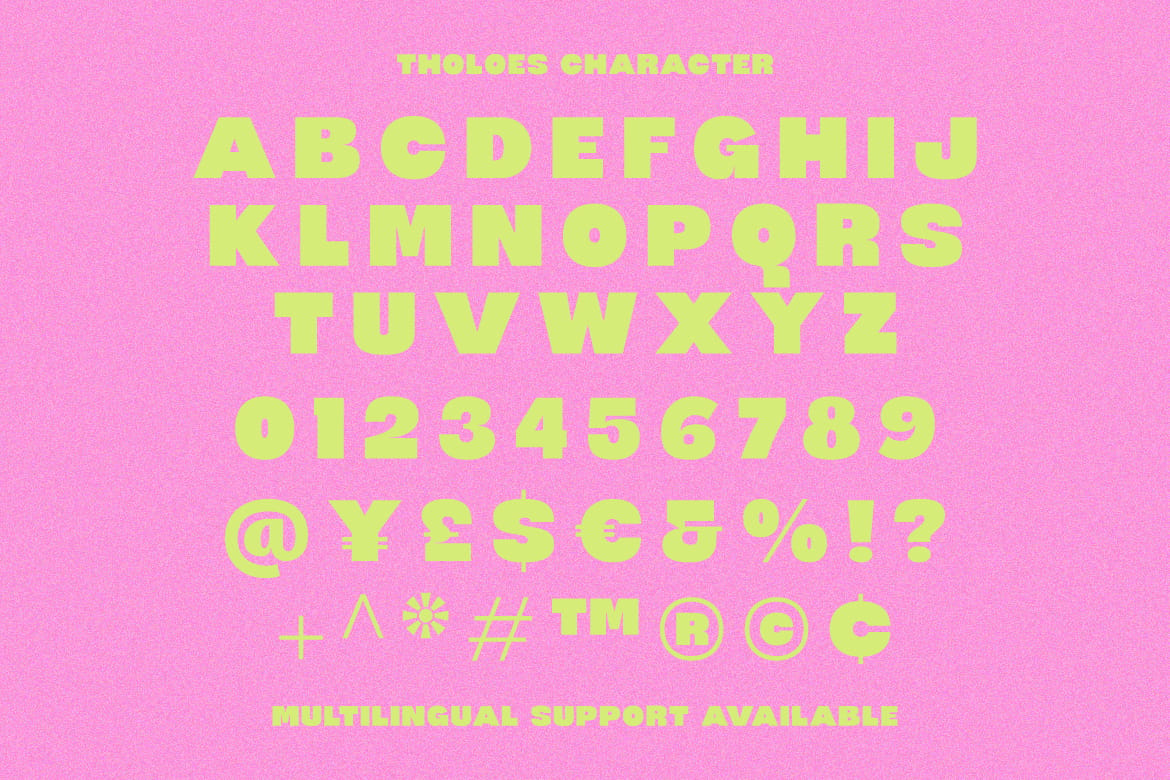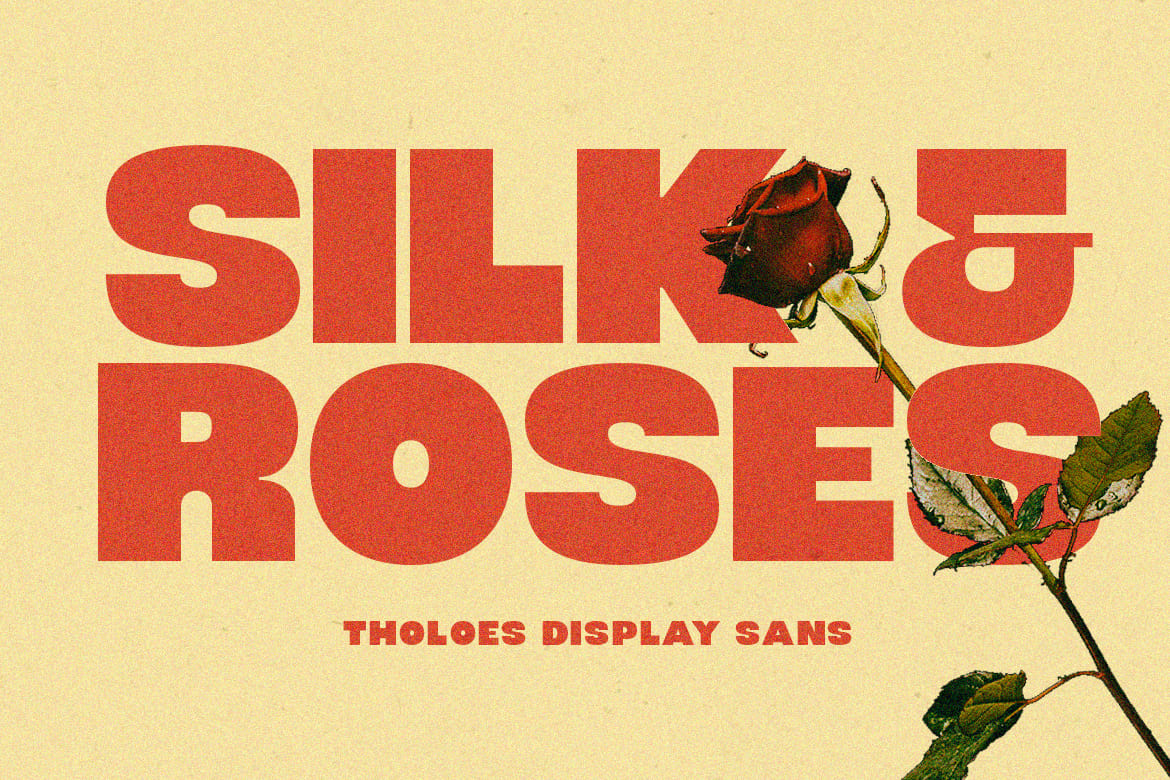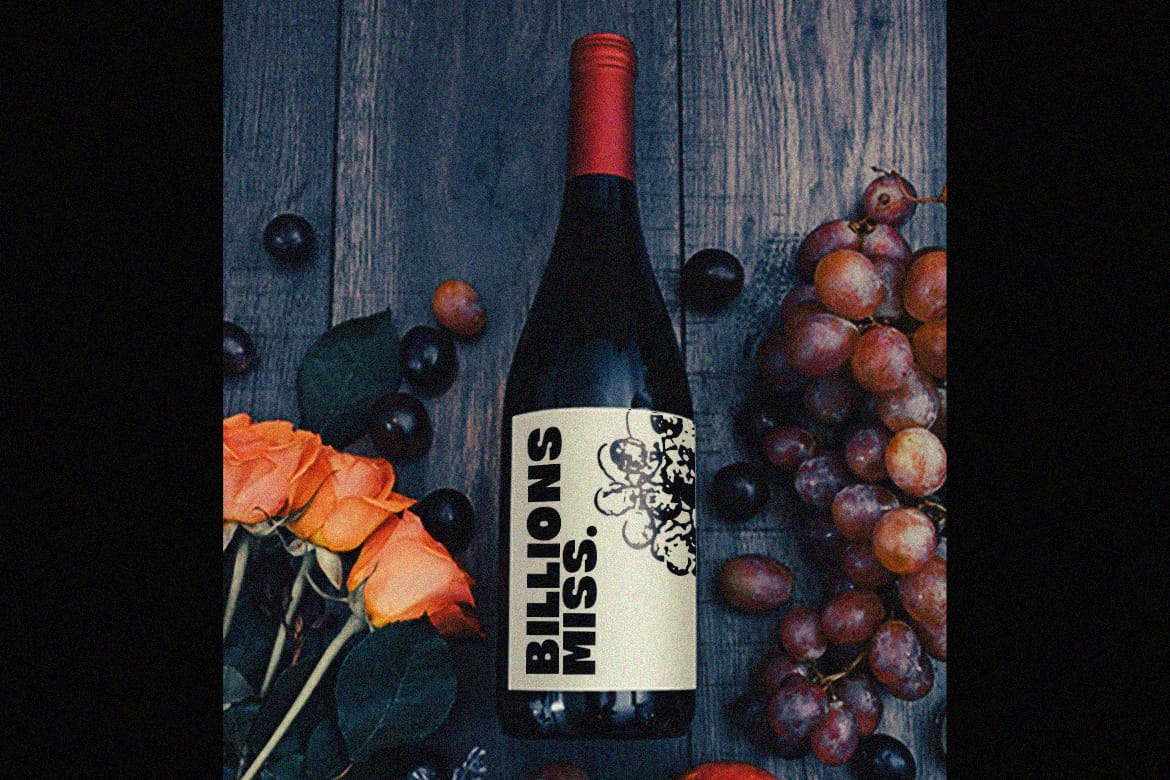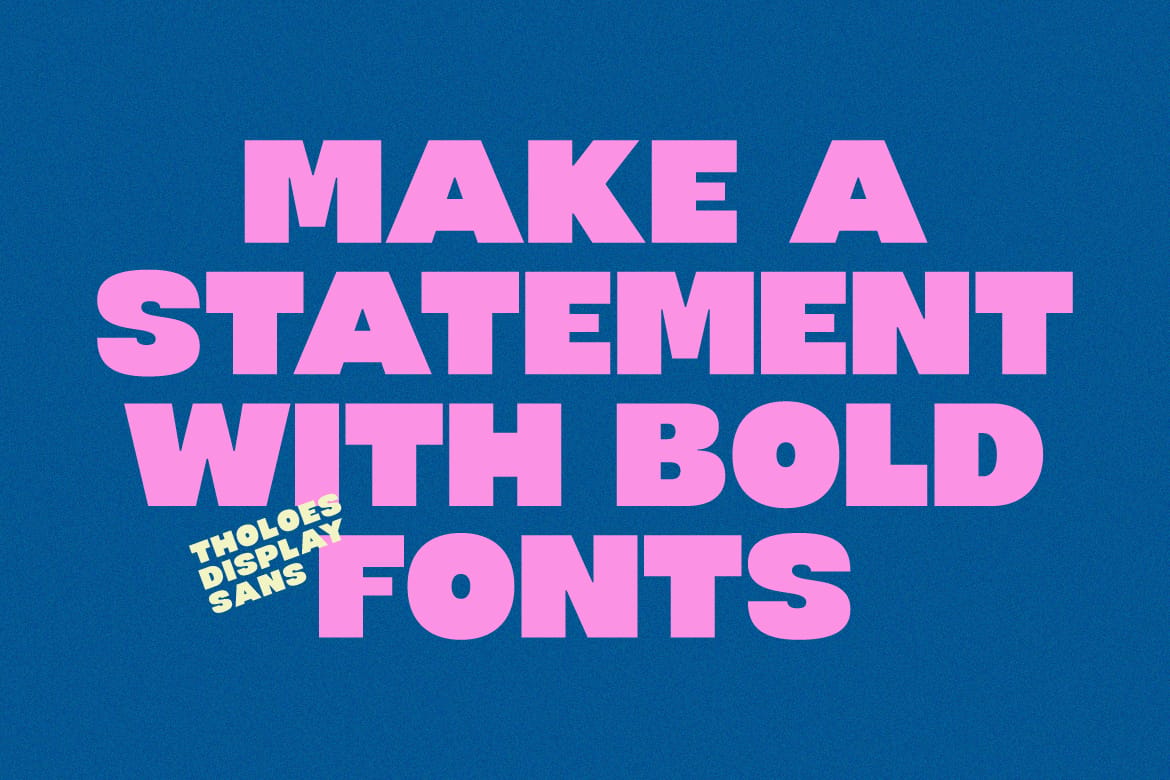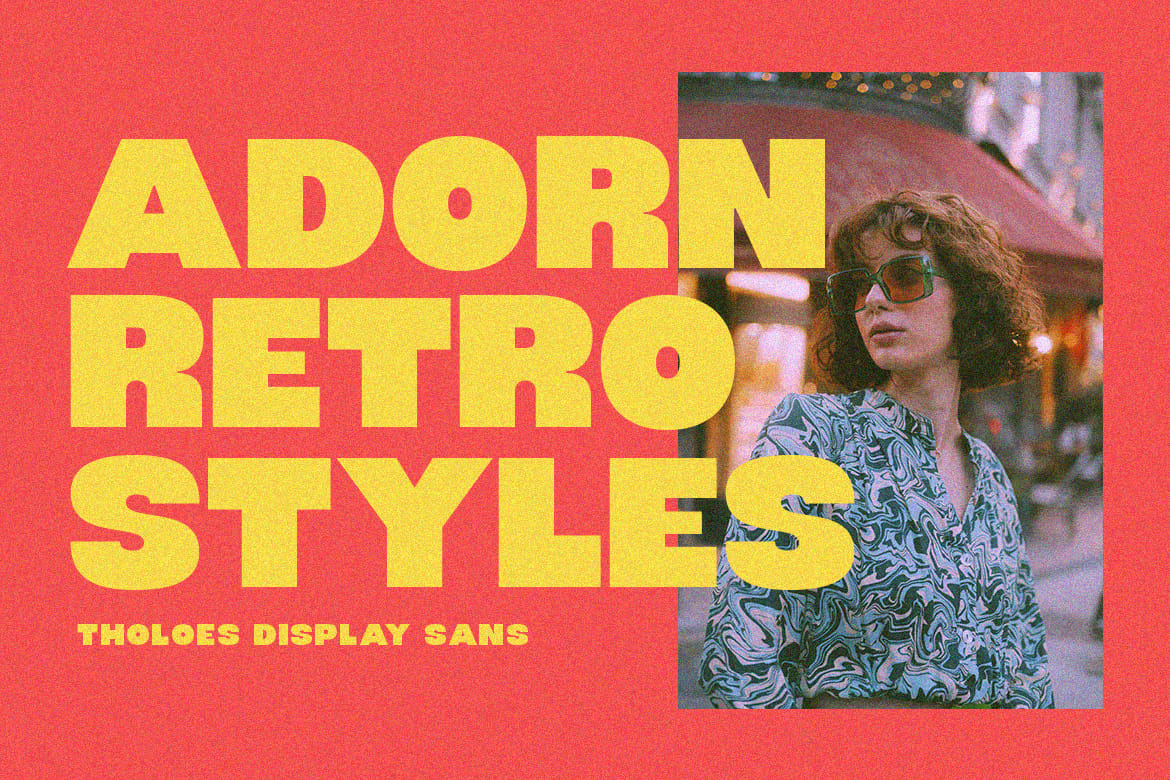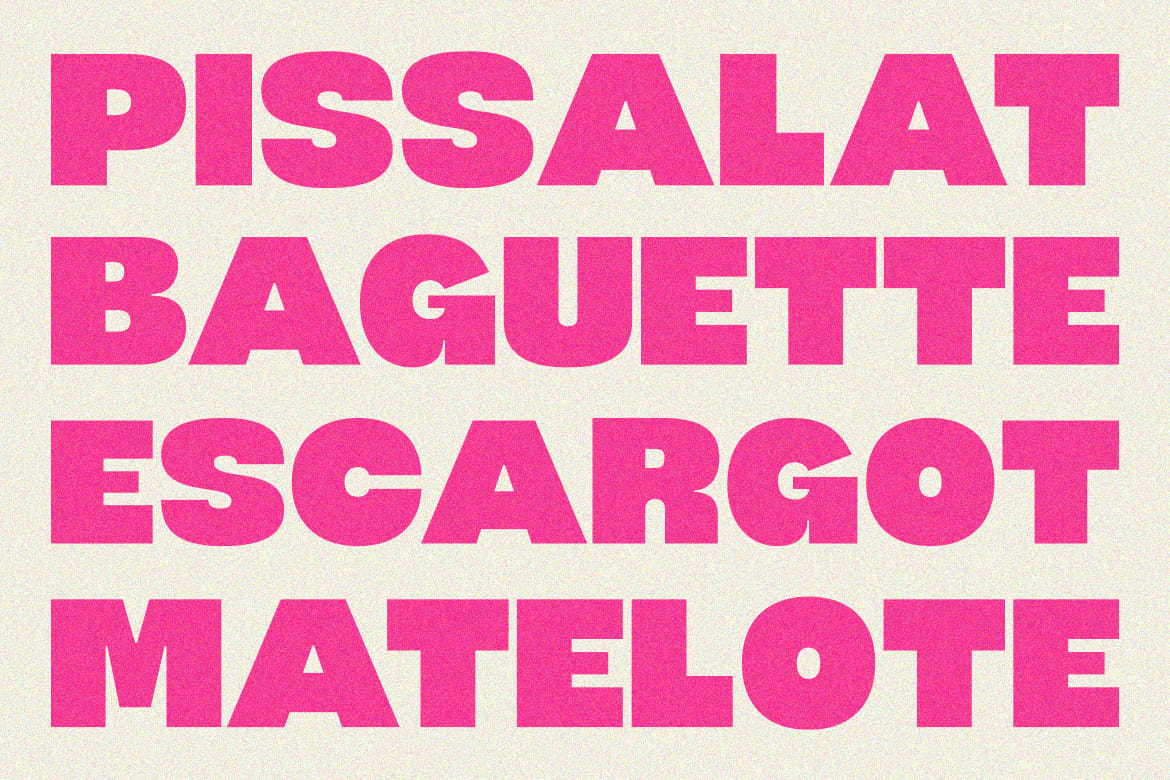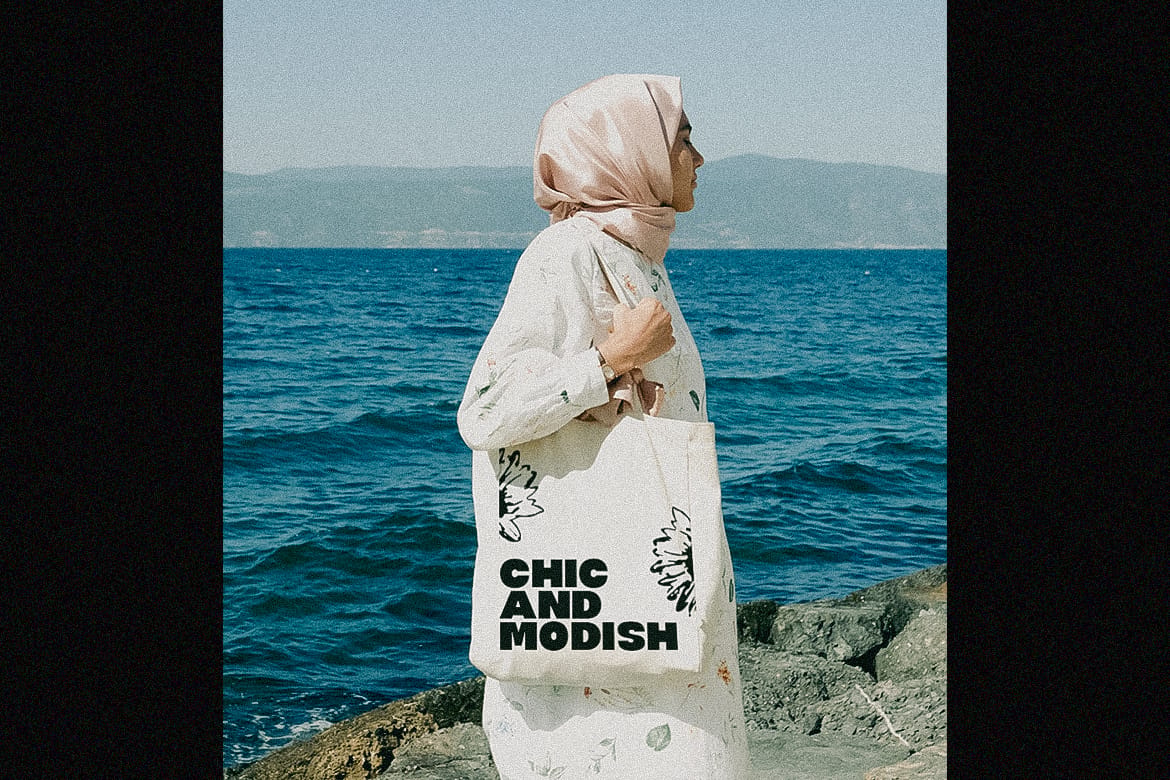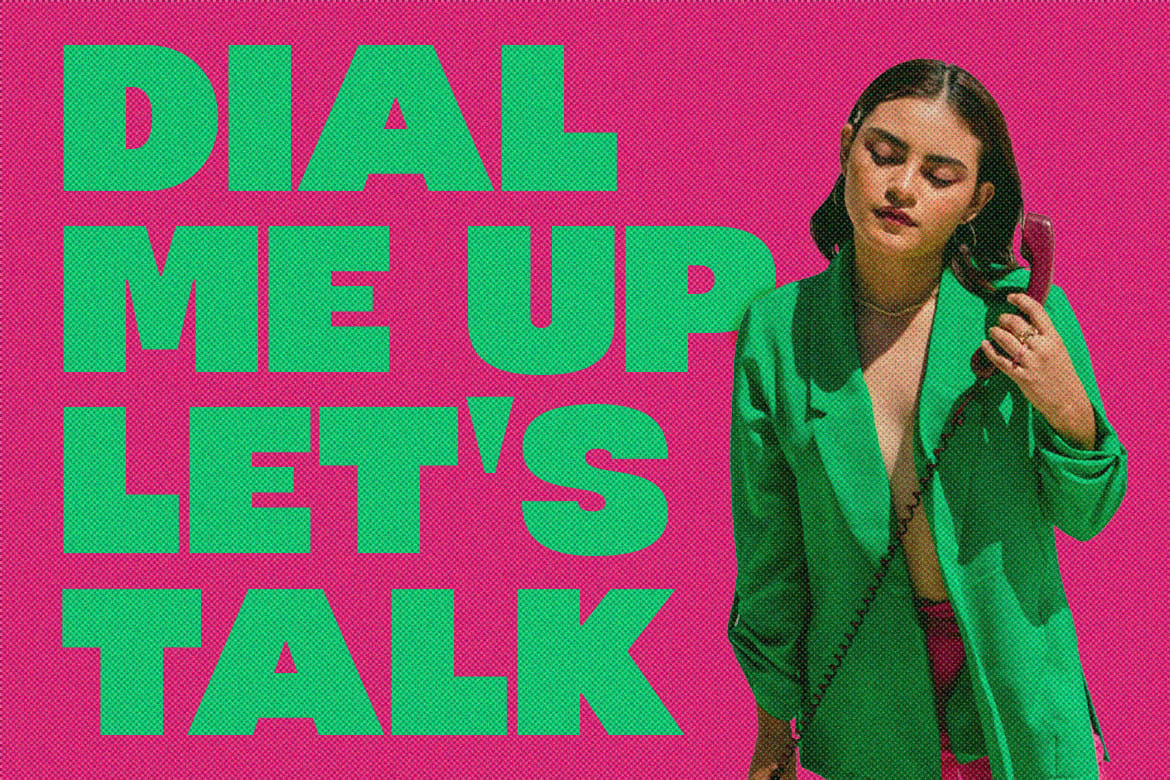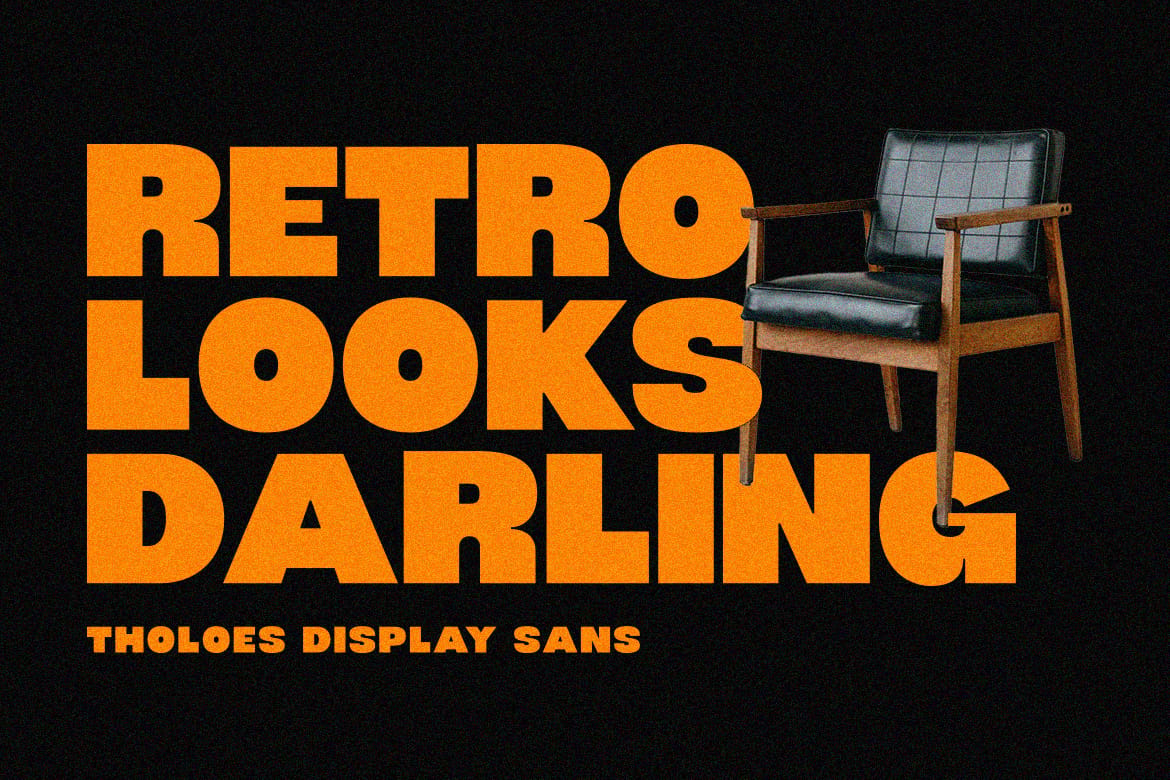
Tholoes Display Sans
Elevate your designs with Tholoes - a bold, dynamic font that radiates confidence. Ideal for posters, branding, logos, and social media, its strong presence commands attention and leaves a lasting impact. Features: Uppercase, Lowercase, Numeral, Punctuation & Multilingual. Obtained file format: Otf, Ttf & Woff.
• Bold dynamic sans display font
• Commands attention in any design